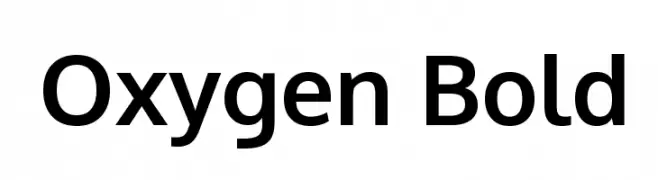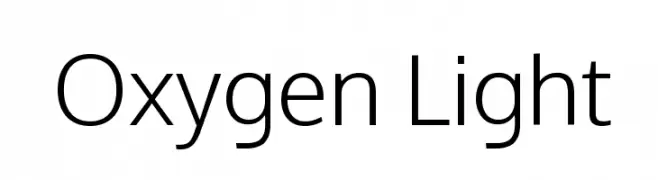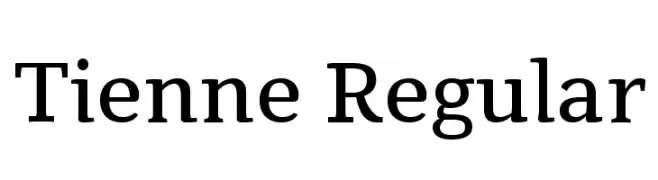
A modern serif font with elegant, elongated serifs and balanced letterforms.
A bold serif font with strong, thick strokes and a classic yet modern style.
A bold, impactful typeface with thick strokes and strong presence.
A bold, modern font with thick, uniform strokes for strong visual impact.
A modern, light sans-serif font with clean lines and excellent readability.
A bold, modern sans-serif font with geometric shapes and uniform stroke width.
A modern, geometric sans-serif font with excellent legibility.
A classic serif font with modern elegance and balanced stroke contrast.
A clean and modern sans-serif font with balanced spacing and consistent stroke width.
A modern, geometric sans-serif font with clean lines and a structured design.